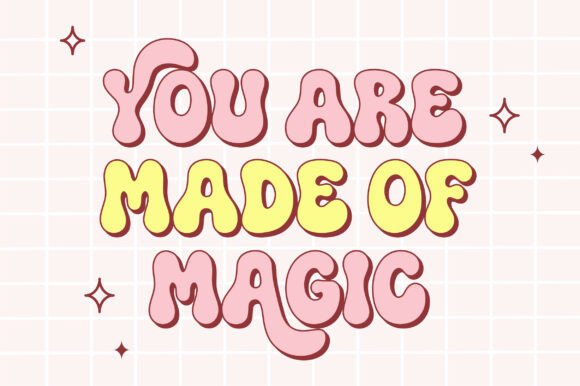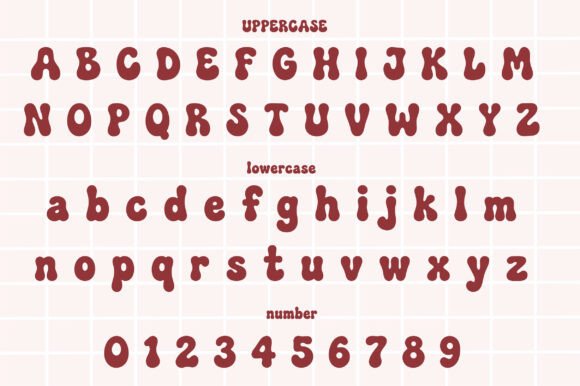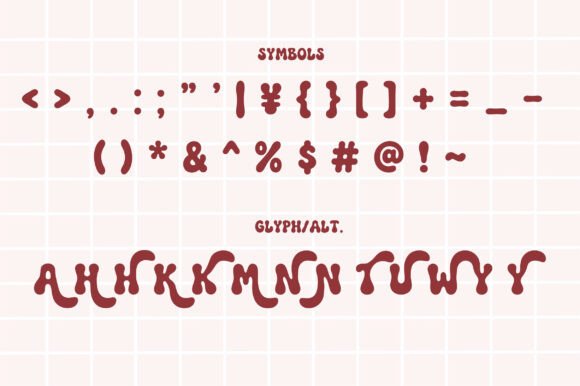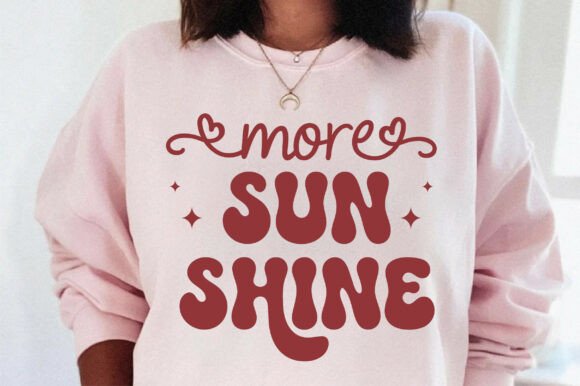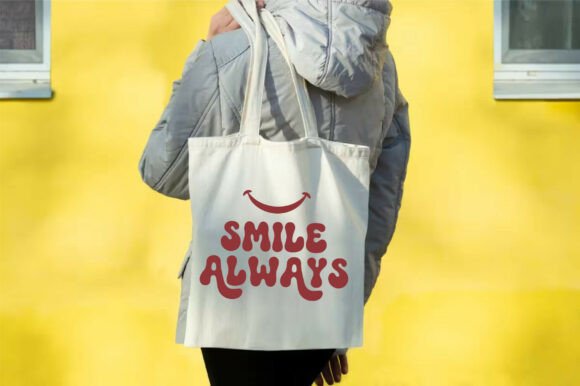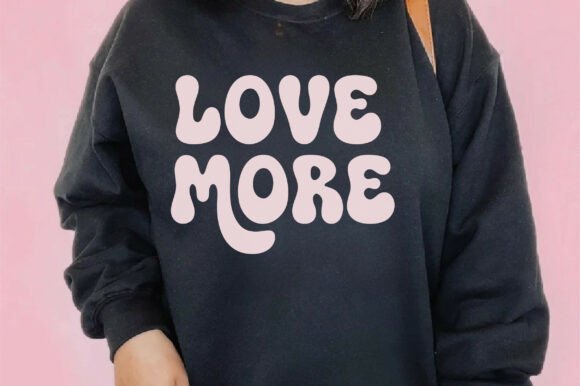
Introduction to Retro Chubby Font
Remember that moment when you stumbled upon a dusty vintage store and found a unique, one-of-a-kind poster that immediately caught your eye? For designers, that’s the kind of creative spark that can fuel a project and lead to something truly amazing. The Retro Chubby Font is one such discovery, a retro groovy font that’s sure to bring a nostalgic vibe to any design project.
With its bold bubbly curves and smooth rounded edges, the Retro Chubby Font is a design resource that’s perfect for t-shirts, posters, branding, packaging, stickers, logos, quotes, and retro-inspired designs. Its high-quality aesthetic makes it an invaluable addition to any designer’s toolkit, and the best part? It’s available for free download with a transparent background, making it easy to integrate into any creative project.
Key Features of Retro Chubby Font
- Unique, hand-drawn design inspired by classic retro aesthetic, perfect for creative projects.
- Includes a comprehensive character set, covering a wide range of languages and characters.
- Designed with a bold, playful style that adds a touch of nostalgia to any creative project.
Honest Review: Retro Chubby Font
I recently came across the Retro Chubby Font, and I was immediately drawn to its quirky charm. As a designer, I appreciate high-quality fonts that can elevate a creative project. This font definitely delivers, with its bold, rounded letters and playful vibe.
What works well: ✨ The Retro Chubby Font is incredibly versatile and can be used for a wide range of designs, from retro-inspired posters to modern branding projects. Its transparent background makes it easy to layer over other graphics, and the font is available for free download, making it a valuable resource for designers on a budget.
- High-quality design with bold, rounded letters
- Perfect for retro-inspired and creative projects
Limitations: ⚠️ While the Retro Chubby Font is generally well-designed, it may not be the best choice for projects that require a more minimalist or modern aesthetic. Additionally, the font’s bold style may not be suitable for small text or body copy.
Overall, I’m impressed with the Retro Chubby Font. Its unique design and free download make it a valuable resource for designers, and its versatility means it can be used for a wide range of creative projects. Just be aware of its limitations, and you’ll be all set to create some amazing designs with this font.
Retro Chubby Font
To get the most out of the Retro Chubby Font, use it in conjunction with a transparent background to create a cohesive design. You can also experiment with different font sizes and colors to add depth and visual interest to your design.
The Retro Chubby Font is perfect for a variety of creative projects, including:
Designing a vintage-themed website
Creating a retro-style poster or flyer
Adding a touch of nostalgia to a product label or packaging